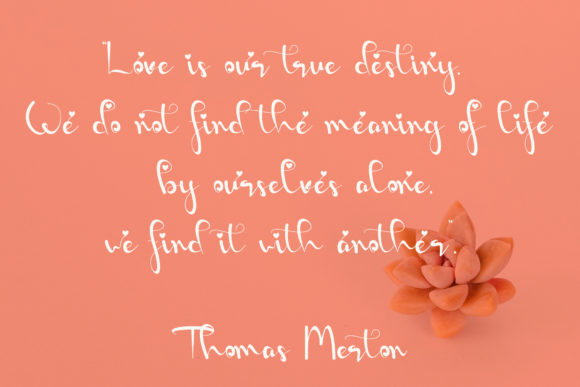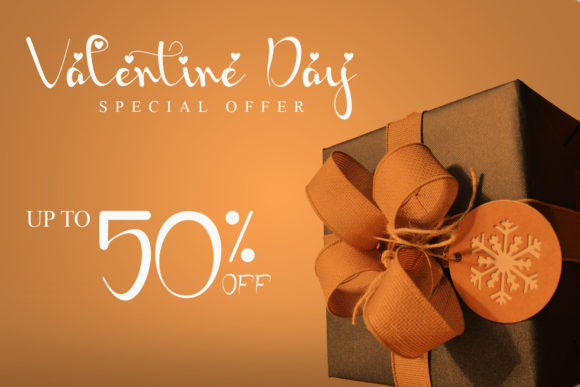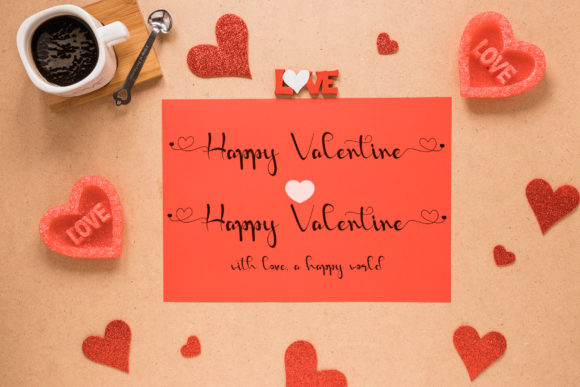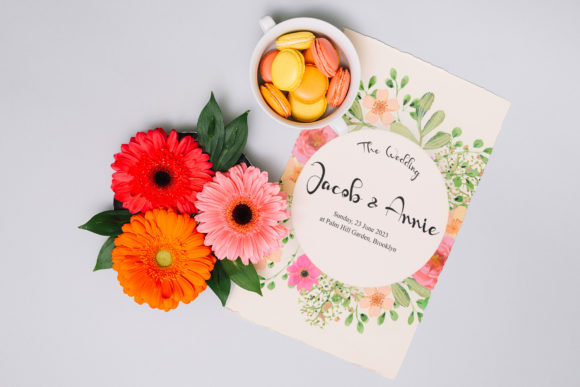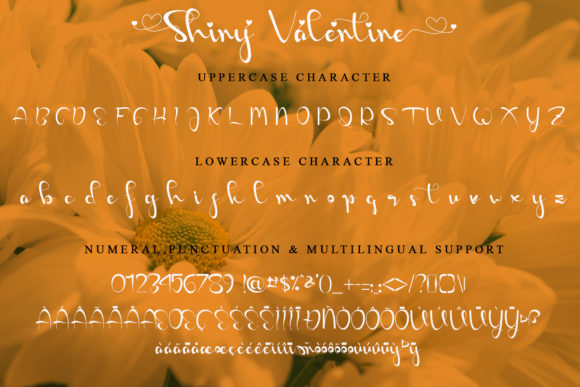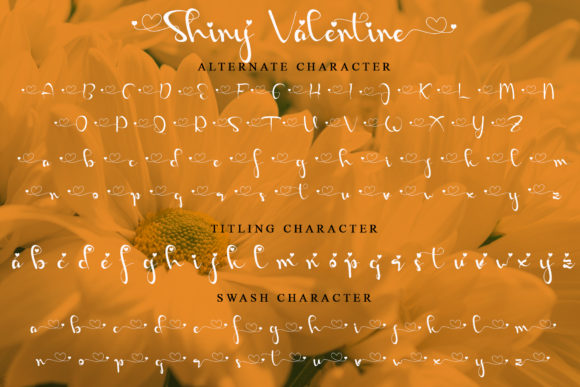
Introduction to Shiny Valentine Font Font
Fonts play a crucial role in design, and the Shiny Valentine Font font is a typeface that brings both character and versatility to any project. Whether you’re working on a branding project, a website, or a print design, the Shiny Valentine Font font offers a unique style that can elevate your work.
| 👤 Author | Arkrist Letter Studio |
Shiny Valentine is a romantic and sweet calligraphy typeface with characters that dance along the baseline.
It has a casual, yet elegant touch This font is PUA encoded which means you can access all of the glyphs and swashes with ease.
Key Features of Shiny Valentine Font Font
Why Choose Shiny Valentine Font Font?
The Shiny Valentine Font font is more than just a typeface – it’s a design tool that helps you communicate your message with style and clarity. Its unique character set and versatile design make it suitable for a wide range of applications, from elegant invitations to bold headlines.
With its carefully crafted letterforms and balanced proportions, the Shiny Valentine Font font ensures readability and visual appeal across all mediums.
What makes Shiny Valentine Font font special?
The Shiny Valentine Font font stands out with its unique design, exceptional readability, and versatility across various design applications.